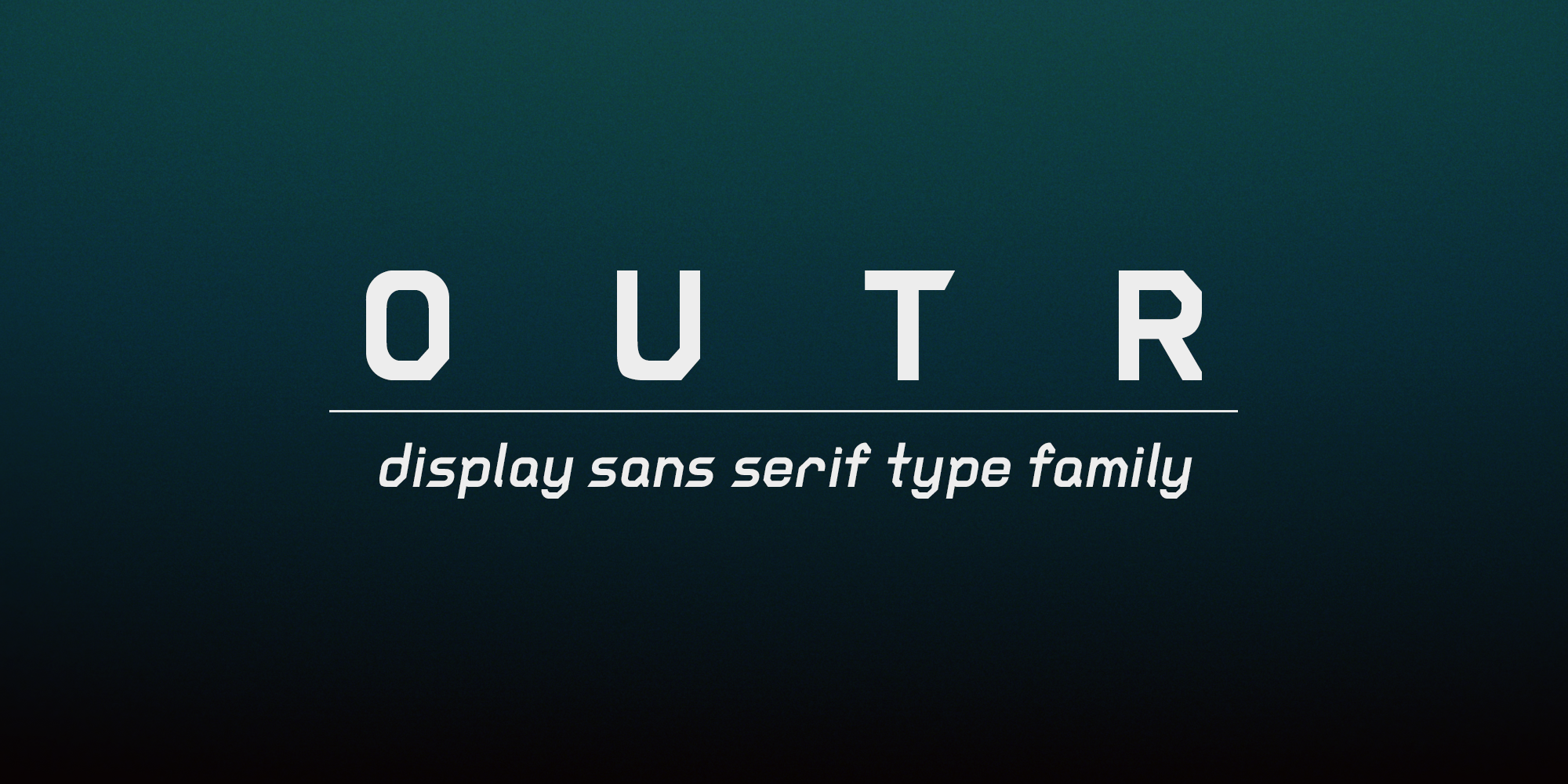
This avant-garde typeface is perfect for contemporary art galleries, experimental music labels, cutting-edge fashion brands, underground nightclubs, creative agencies, alternative magazines, independent film festivals, digital art exhibitions, progressive theater productions, innovative startups, rebellious streetwear brands, and unconventional marketing campaigns. The font's radical design makes it ideal for projects that challenge conventions and push creative boundaries beyond traditional limits.
Outr Font is exciting because it embodies pure creative rebellion and artistic innovation through its unconventional letterforms and boundary-breaking character structure. The font's daring proportions and experimental approach create an atmosphere of limitless creativity and fearless expression, making it perfect for brands that want to convey originality, boldness, and the courage to be different. Its distinctive personality ensures unforgettable recognition while maintaining surprising readability across various artistic applications.
The Outr Font family includes multiple experimental variations: Light Rebel, Regular Maverick, Medium Rogue, Bold Outlaw, and Black Revolutionary weights, each featuring unique character interpretations and artistic alternates. Special avant-garde editions include deconstructed letterforms, abstract symbols, and experimental ligatures that amplify the font's radical appeal, providing designers with powerful tools for creating truly groundbreaking typographic statements.